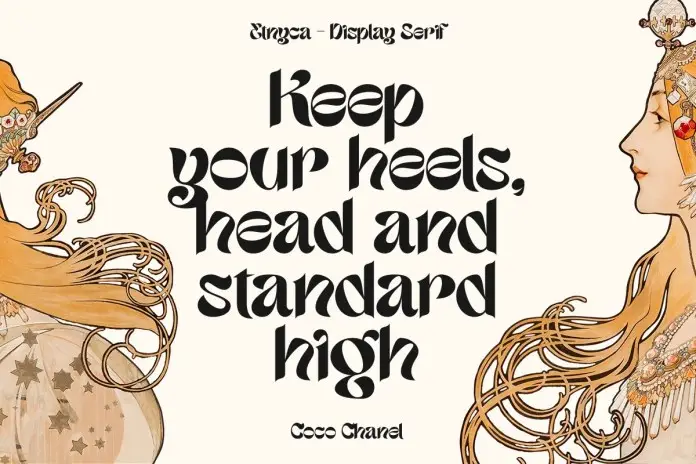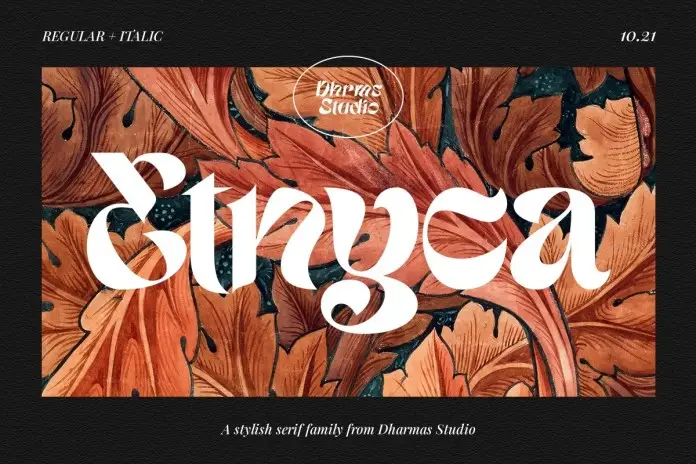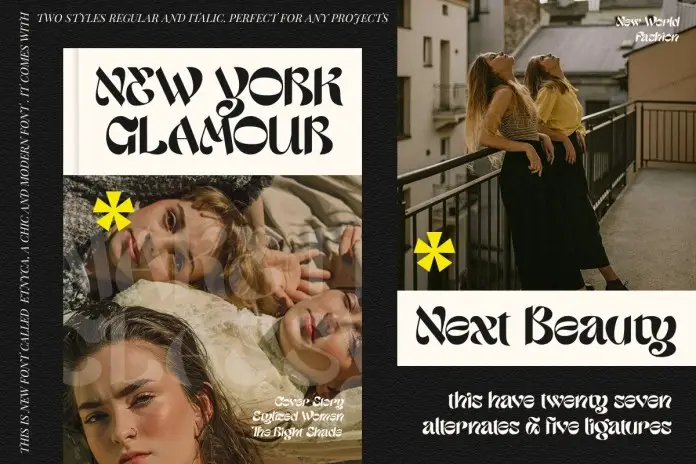
Etnyca Display Font
The Etnyca Display Font is a striking typeface designed to capture attention and add character to your projects. With its unique style, this font is perfect for a variety of applications, including branding, logos, web design, print materials, and user interfaces.
• Ideal for headlines and titles to make a strong impact.
• Combine with complementary fonts for a balanced design.
• Ensure readability at various sizes for optimal use in print and digital formats.